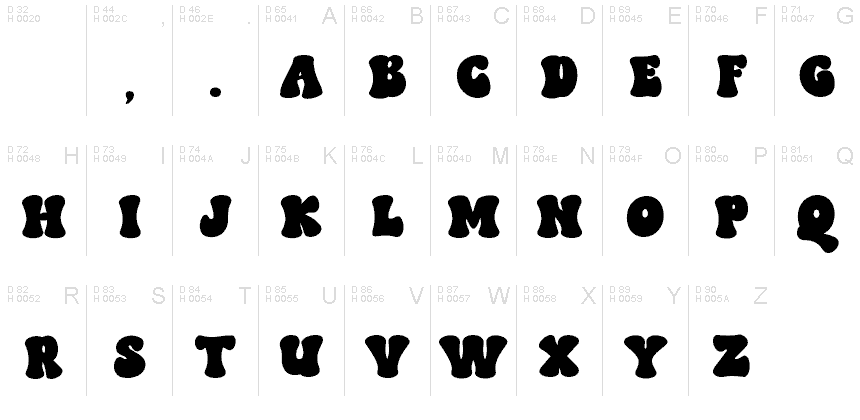
WILD KINDER Regular
Wild Kinder font, designed by Achmad Yani, is a bold groovy display font with a whimsical and retro-inspired design. It features organic shapes and high-contrast appearance that together establish both nostalgia and creativity in headlines as well as short length texts where it works best. This font easily evokes pop culture memories of the 1970s along with psychedelic art styles leaving behind a nostalgic feeling.
This free display font deserves first place in beer label designs, headlines, posters, books for children, packaging products like chips/snacks/cereals/desserts/cheese etc., communicating casual branding ideas aimed towards younger audiences among other target markets. It can also be used on banners and shirts.